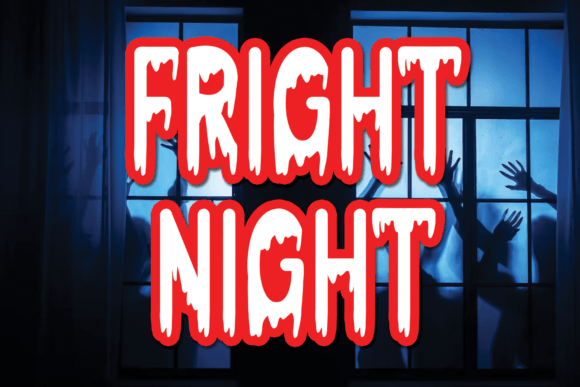
Introducing Fright Night Font, a hauntingly beautiful display font that will cast a spell on your designs. This spine-chilling font is perfect for all your Halloween-themed projects, from invitations and posters to website graphics and social media posts. With its eerie and eye-catching characters, Fright Night Font will make your words jump off the page and send shivers down your reader's spines.
Unleash your creativity and let the spooky season come alive with Fright Night Font. Transform ordinary text into captivating headlines, give your Halloween party invitations a bone-chilling twist, or create spine-tingling graphics that will have your audience spellbound. The possibilities are endless with this devilishly delightful font.
So, if you dare to embrace the dark side of design, download Fright Night Font today and let your imagination run wild. Prepare to be captivated by the eerie beauty of this font and watch as your designs take on a life of their own. With Fright Night Font, the night will never be the same!